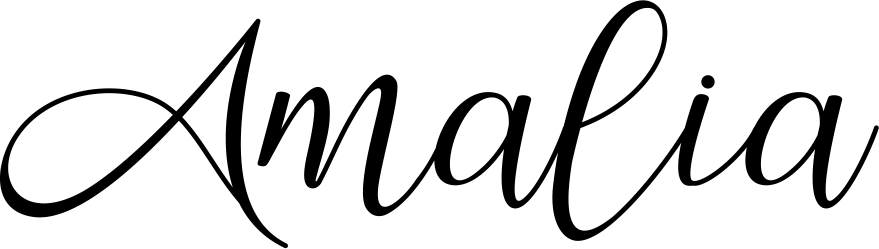
Amalia Font
Amalia will surely transfer your texts to a unique handwritten masterpiece. This funeral font has continuous and curly characters and it will convey a vintage and elegant look to your reader. You can use it for classic movie and book titles, theater and opera posters and flyers, and product packaging.